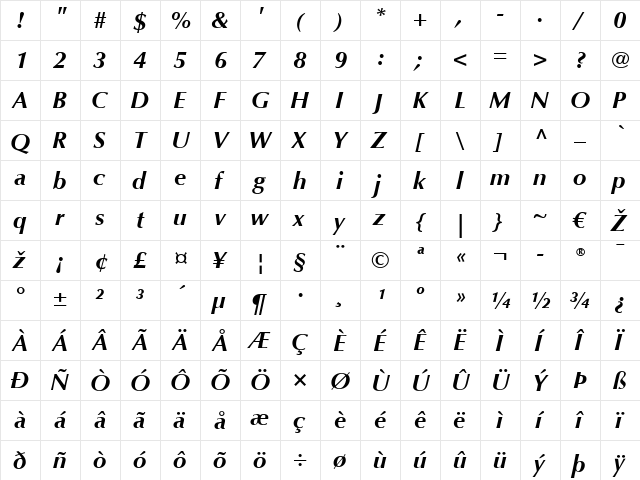
Optima LT Bold Italic Font Preview
Design Context for Optima LT Typeface
Optima LT offers clean, dependable letterforms without strong stylistic allegiance, making it a practical choice for designers who need flexibility. The dynamic lean of this cut emphasises speed and emphasis in any layout. The heavy weight commands attention and anchors typographic hierarchies.